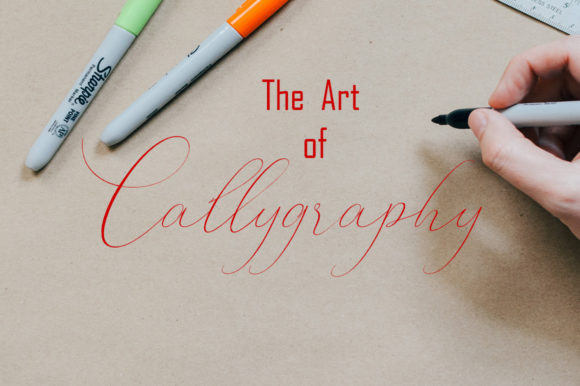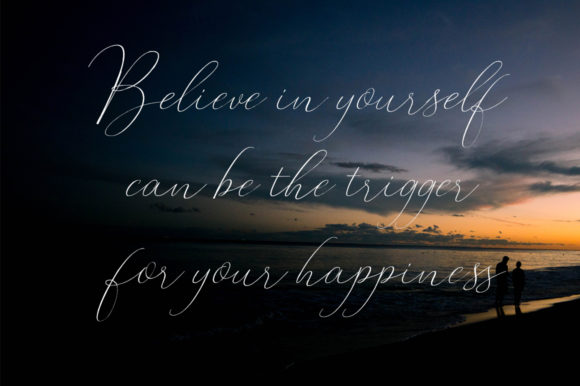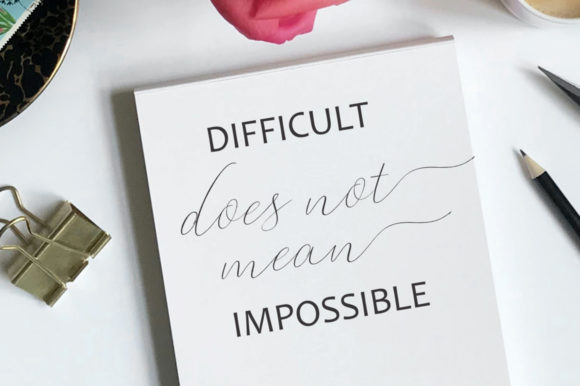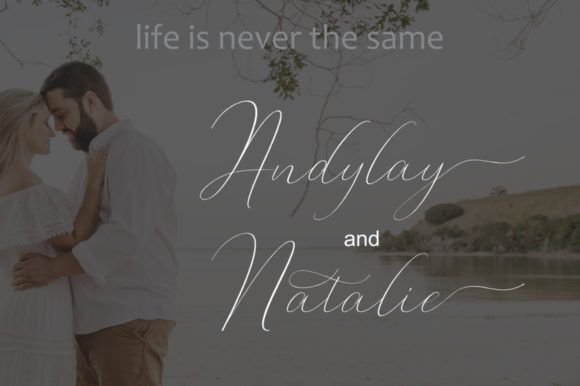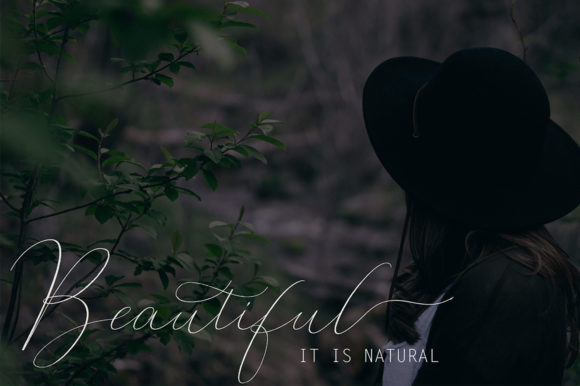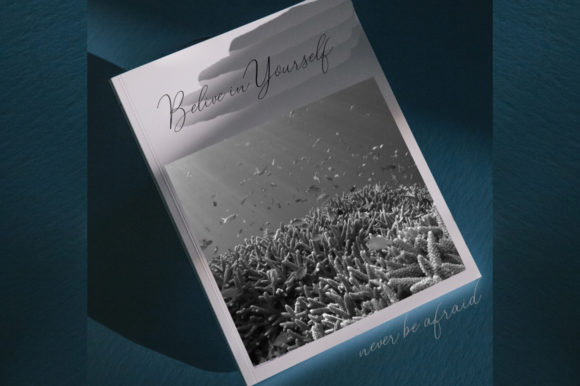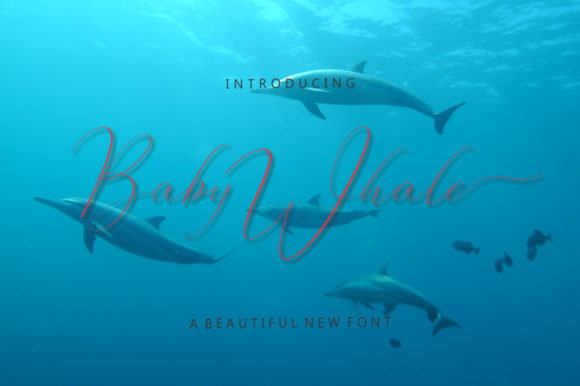
Baby Whale Font: A Sweet and Delicate Handwritten Font for Your Designs
Are you looking for a font that can add a touch of sweetness and delicacy to your designs? Look no further than the Baby Whale Font! This beautiful handwritten font is perfect for designers and crafters who want to create stunning visual content that stands out from the crowd.
What Makes Baby Whale Font So Special?
Baby Whale Font is a sweet and delicate handwritten font that boasts a fashionable and cursive style. Its elegant and flowing lines make it incredibly fitting for a wide range of designs, from wedding invitations and baby shower cards to branding and packaging. Whether you’re a professional designer or a crafter, this font is sure to become a favorite in your collection.
One of the best things about Baby Whale Font is that it’s PUA (Private Use Area) encoded. This means that you can access all of the glyphs and swashes with ease, giving you complete creative control over your designs. With PUA encoding, you can easily access the font’s built-in features, such as ligatures, stylistic alternates, and swashes, to add a personal touch to your designs.
Perfect for a Variety of Designs
Baby Whale Font is incredibly versatile and can be used for a wide range of designs, including:
• Baby shower cards and decorations
• Branding and packaging
• Blog and website headers
• And more!
Why Choose Baby Whale Font?
So, why should you choose Baby Whale Font for your designs? Here are just a few reasons:
• Unique and eye-catching: Baby Whale Font is a one-of-a-kind font that will make your designs stand out from the crowd.
• Elegant and sophisticated: The font’s cursive style gives it an elegant and sophisticated feel that’s perfect for high-end designs.
• Easy to use: With PUA encoding, you can easily access all of the font’s features and glyphs.
• Versatile: Baby Whale Font can be used for a wide range of designs, from wedding invitations to social media graphics.
Tips for Using Baby Whale Font
Here are a few tips for using Baby Whale Font in your designs:
• Pair it with a bold font: Baby Whale Font is elegant and delicate, so pairing it with a bold font can create a beautiful contrast.
• Use it for headings: The font’s cursive style makes it perfect for headings and titles.
• Experiment with swashes: With PUA encoding, you can easily access the font’s swashes and glyphs to add a personal touch to your designs.
In conclusion, Baby Whale Font is a sweet and delicate handwritten font that’s perfect for designers and crafters who want to create stunning visual content. Its fashionable and cursive style makes it incredibly fitting for a wide range of designs, and its PUA encoding makes it easy to use. Whether you’re creating wedding invitations, baby shower cards, or social media graphics, Baby Whale Font is sure to become a favorite in your collection.